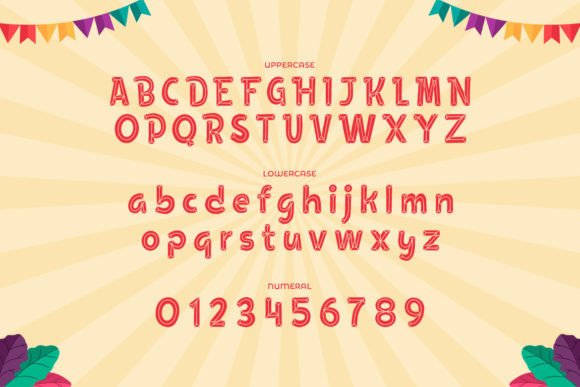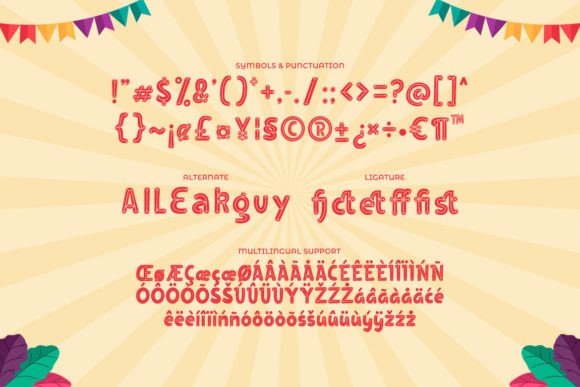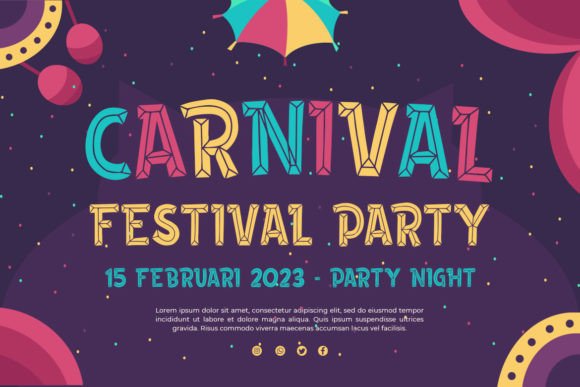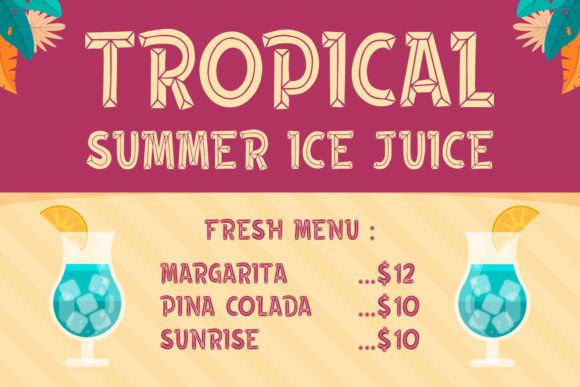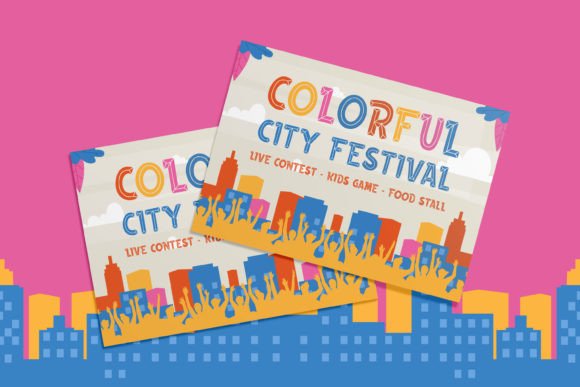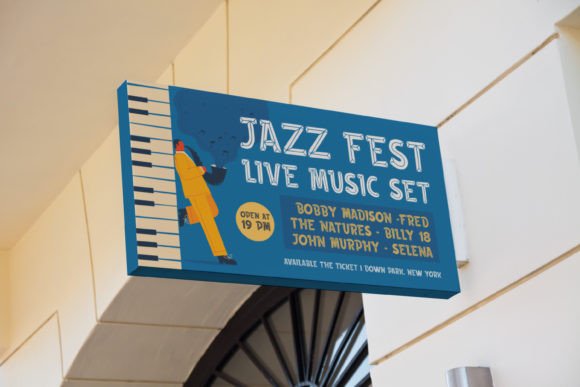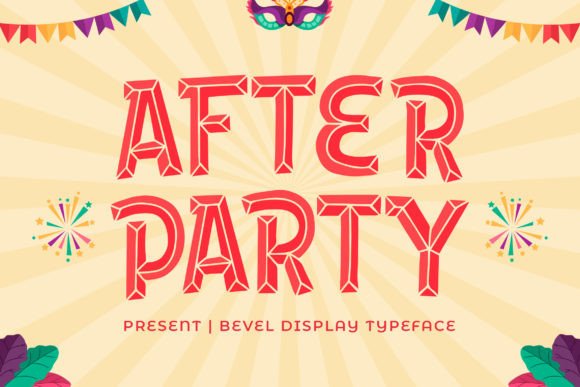
The Ultimate Party Starter: Getting to Know the After Party Font
I’ll never forget the time I was working on a party invitation design for a client’s milestone birthday bash. I had the perfect concept in mind – a vibrant, energetic aesthetic that would get the guests excited – but I was stuck on finding the right font. That’s when I stumbled upon the After Party font, and let me tell you, it was love at first sight! ✨
This bevel decorative font has been a game-changer for my designs, and I’m excited to share my experience with you. Whether you’re a designer, crafter, or creative hobbyist, you’ll love how After Party adds a touch of glamour and sophistication to any project.
• ✅ Versatility: After Party looks outstanding in any context, whether it’s being used on busy backgrounds or as a standalone headline.
• ✨ Aesthetic appeal: The bevel decorative style adds a touch of glamour and sophistication to any design.
• 💥 Attention-grabber: This font is sure to make your headlines pop and grab attention.
A Few Quirks to Consider
While After Party is an amazing font, there are a few things to keep in mind: 🤔
• ⚠️ Legibility: As with any decorative font, legibility can be a issue at smaller font sizes. Make sure to test it out and adjust accordingly.
• ⚠️ Overuse: While After Party is stunning, using it excessively can be overwhelming. Balance it out with simpler fonts for better visual flow.
The Story Behind After Party
While the origins of After Party are shrouded in mystery, it’s clear that the designer was inspired by the glamour of nightlife and the excitement of a party. With its bevel decorative style and attention-grabbing appeal, it’s no wonder After Party has become a favorite among designers.
Q: Is After Party suitable for body text?
A: While After Party is stunning, it’s best suited for headlines and titles. For body text, consider a more legible font.